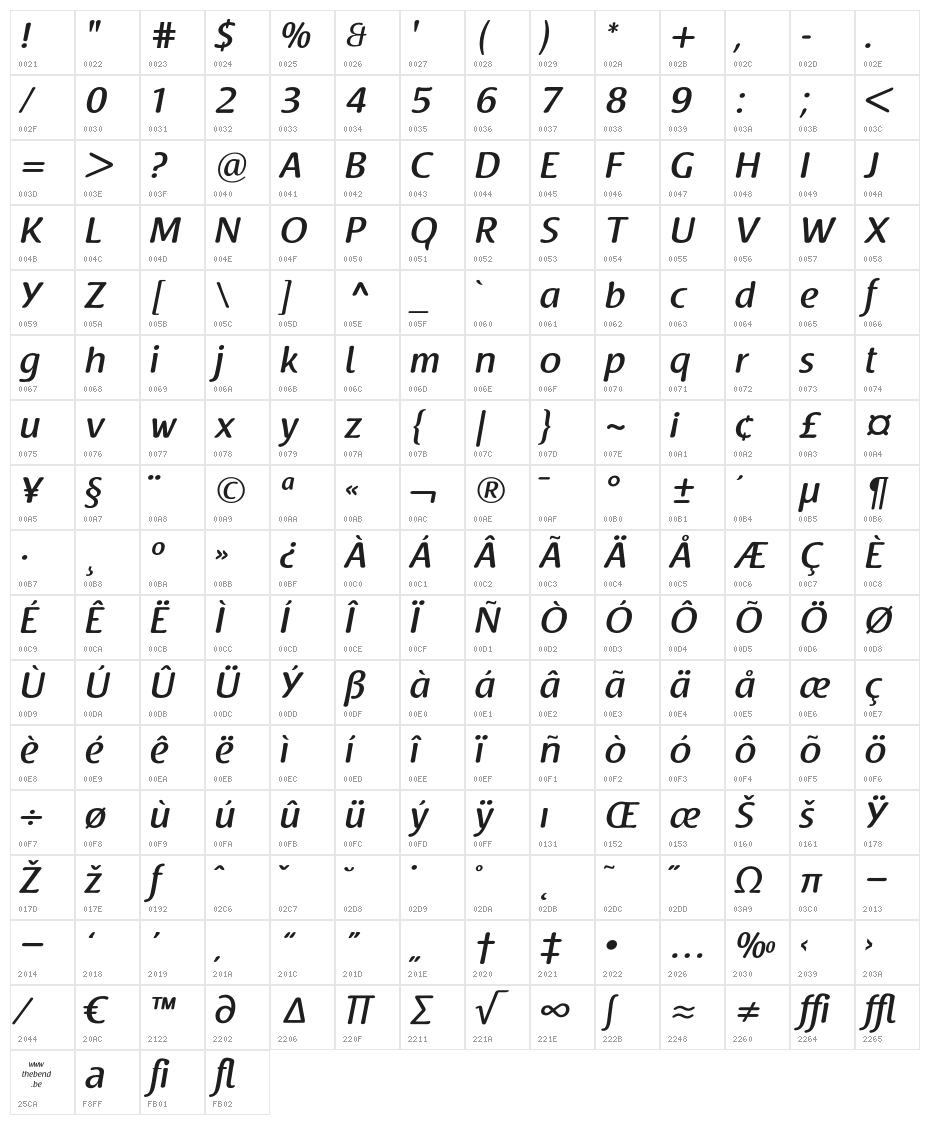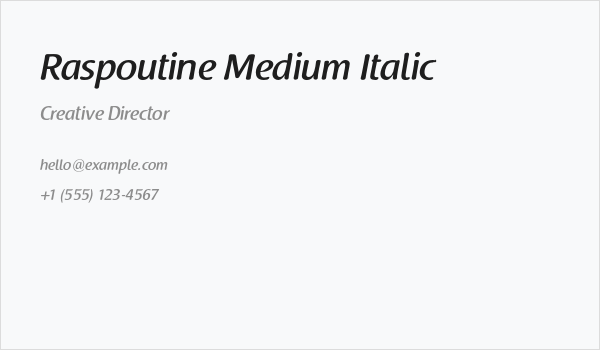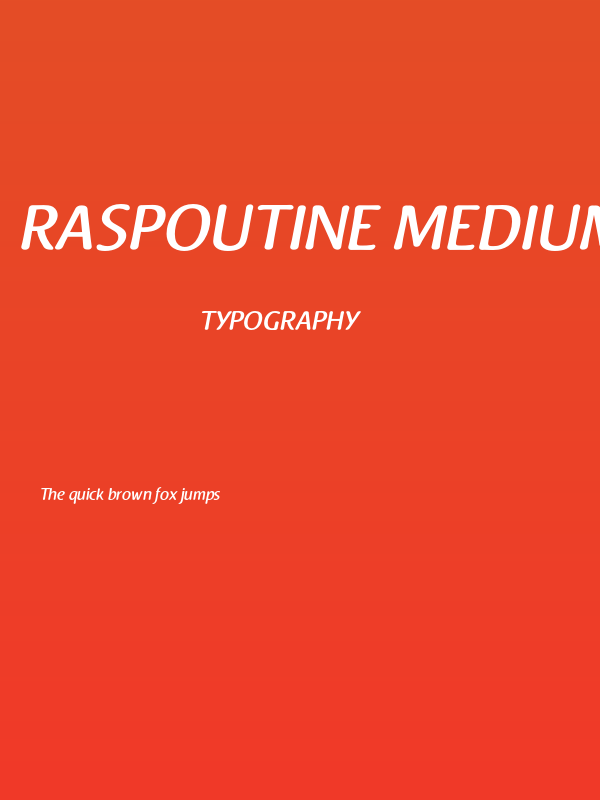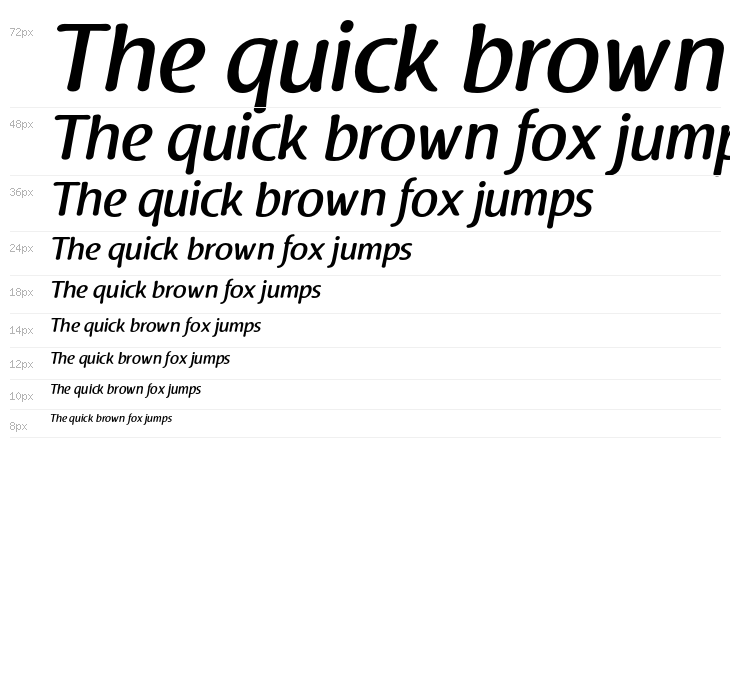
Raspoutine Medium Italic Font
Raspoutine Medium Italic Description
This font features a modern and sleek design with a slight italic slant, giving it a dynamic and fluid appearance. The characters are well-proportioned with a medium weight, providing a balanced and readable text. The strokes are smooth and consistent, with a moderate contrast that enhances legibility without being too bold. The font maintains a clean and professional look, making it suitable for various applications. Its rounded edges and subtle curves add a touch of elegance and sophistication, while the italic style introduces a sense of movement and energy.
| Proposed Projects | Ideal for branding, advertising, and editorial design projects where a modern and elegant touch is desired. |